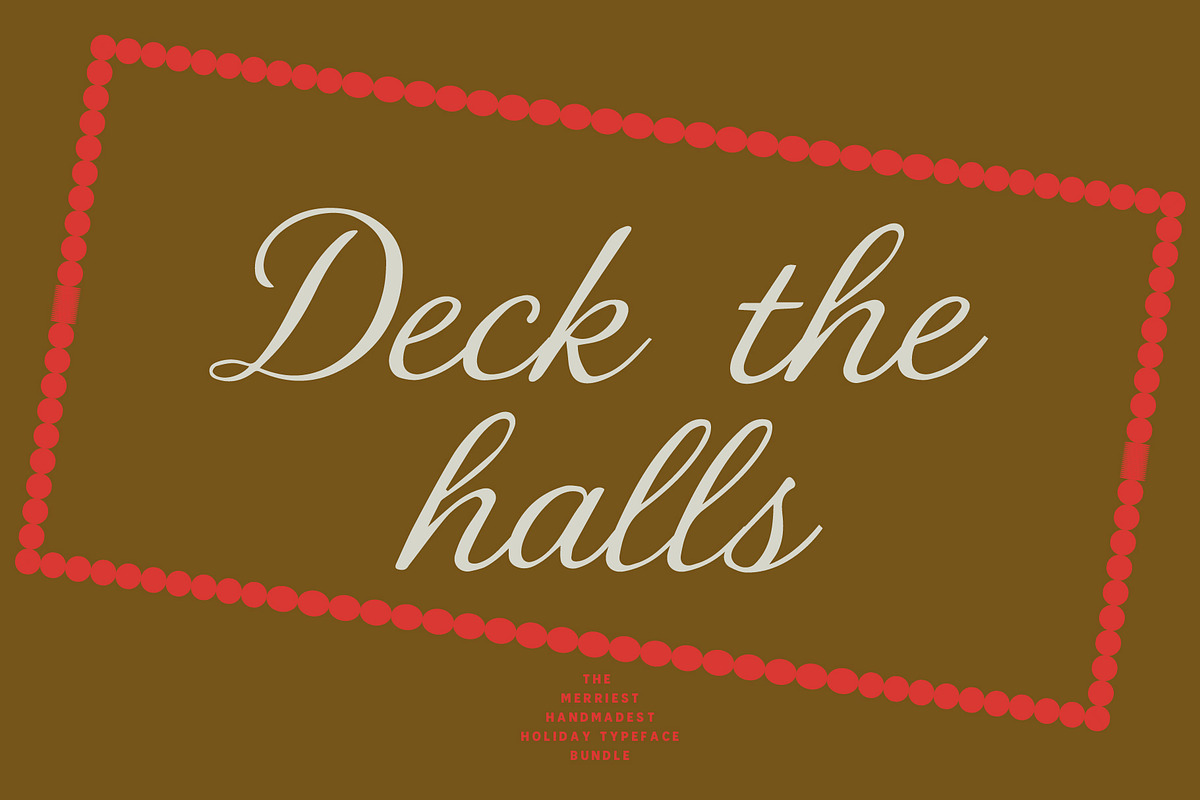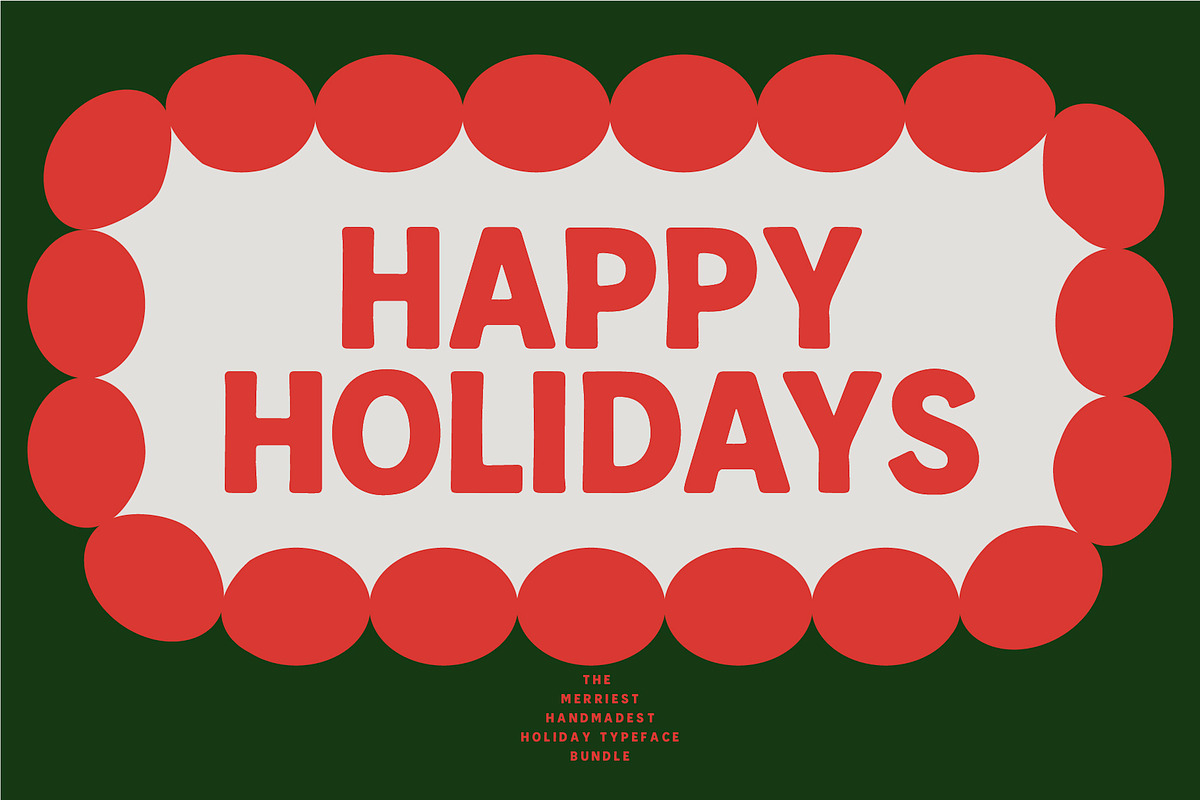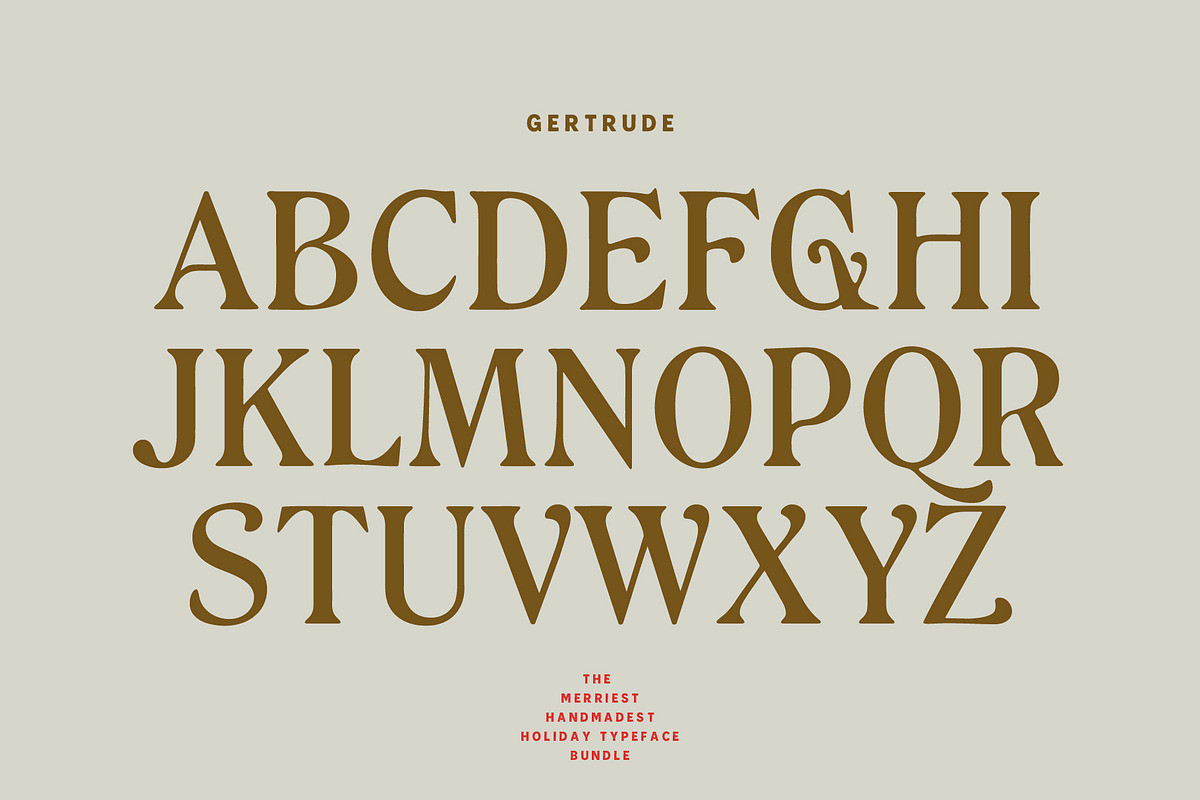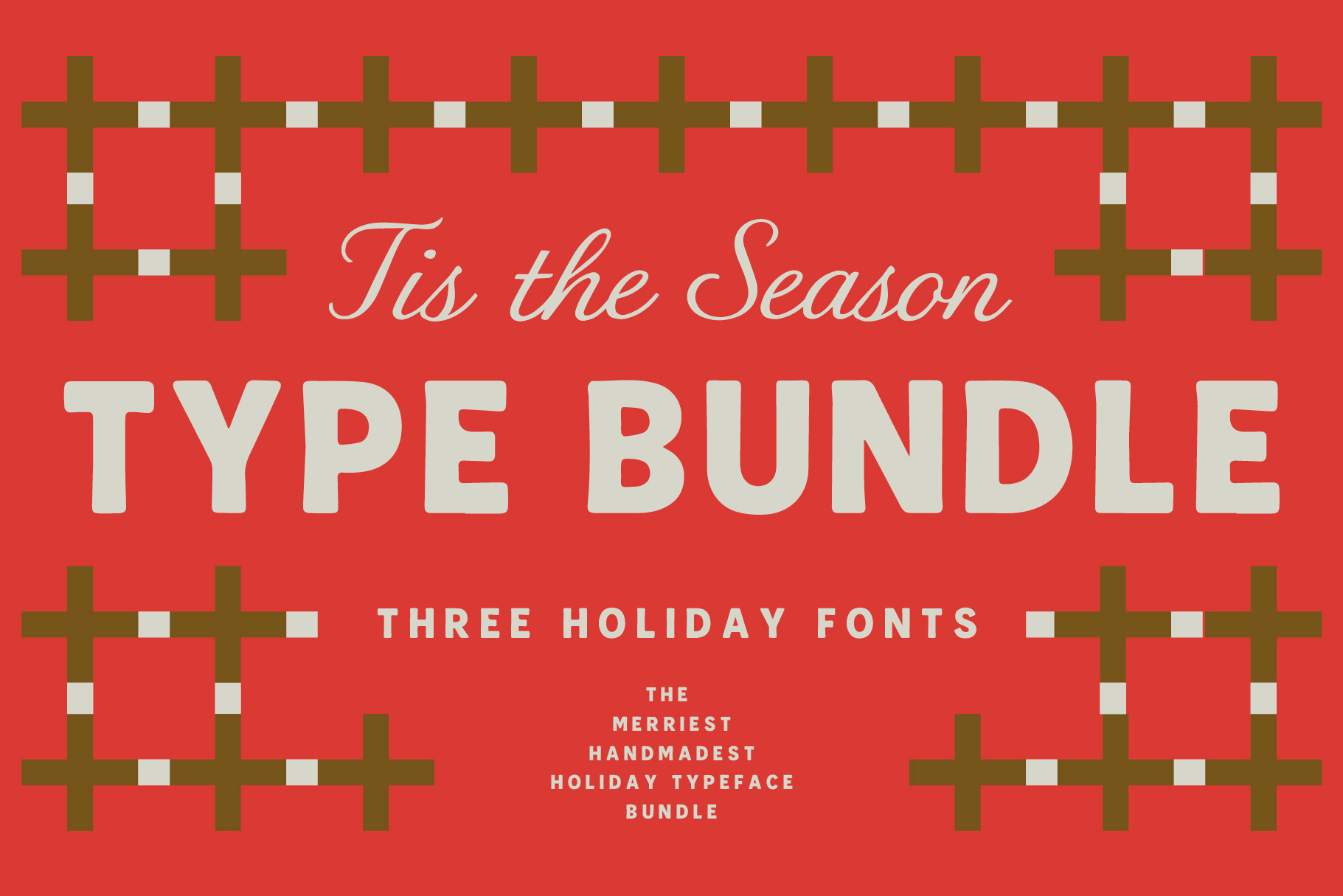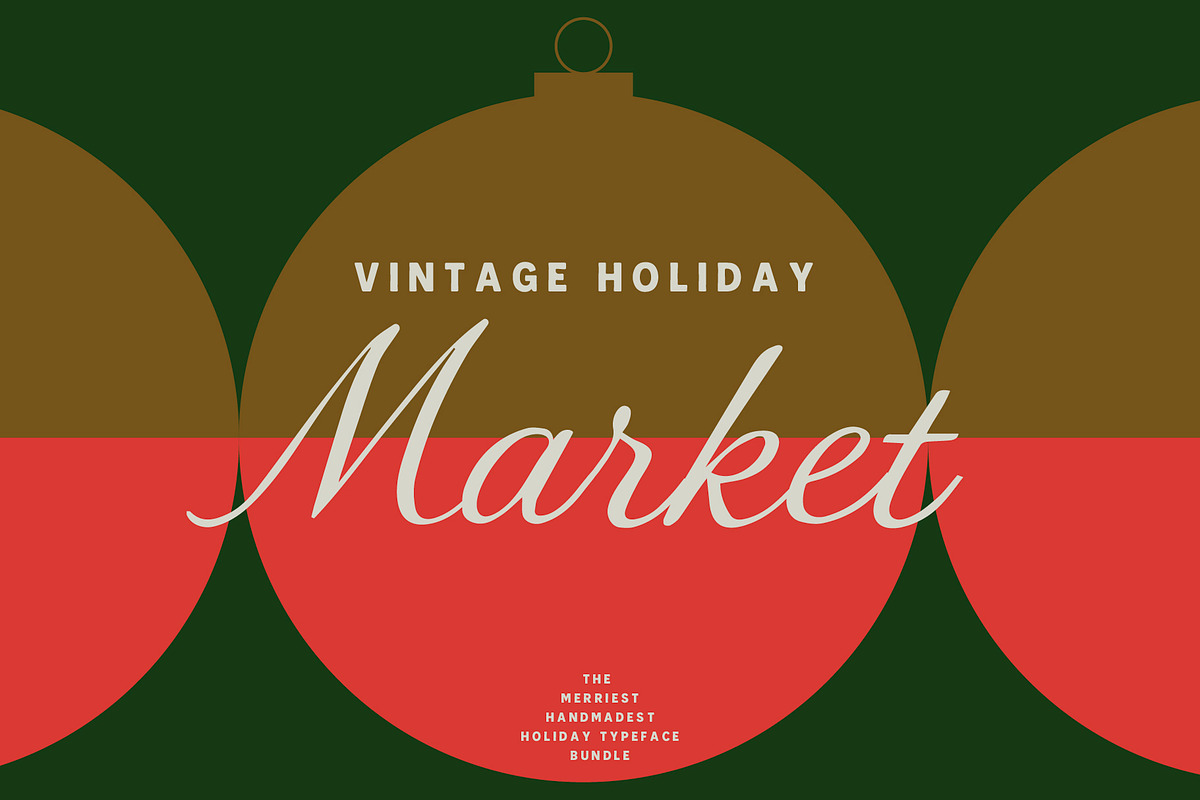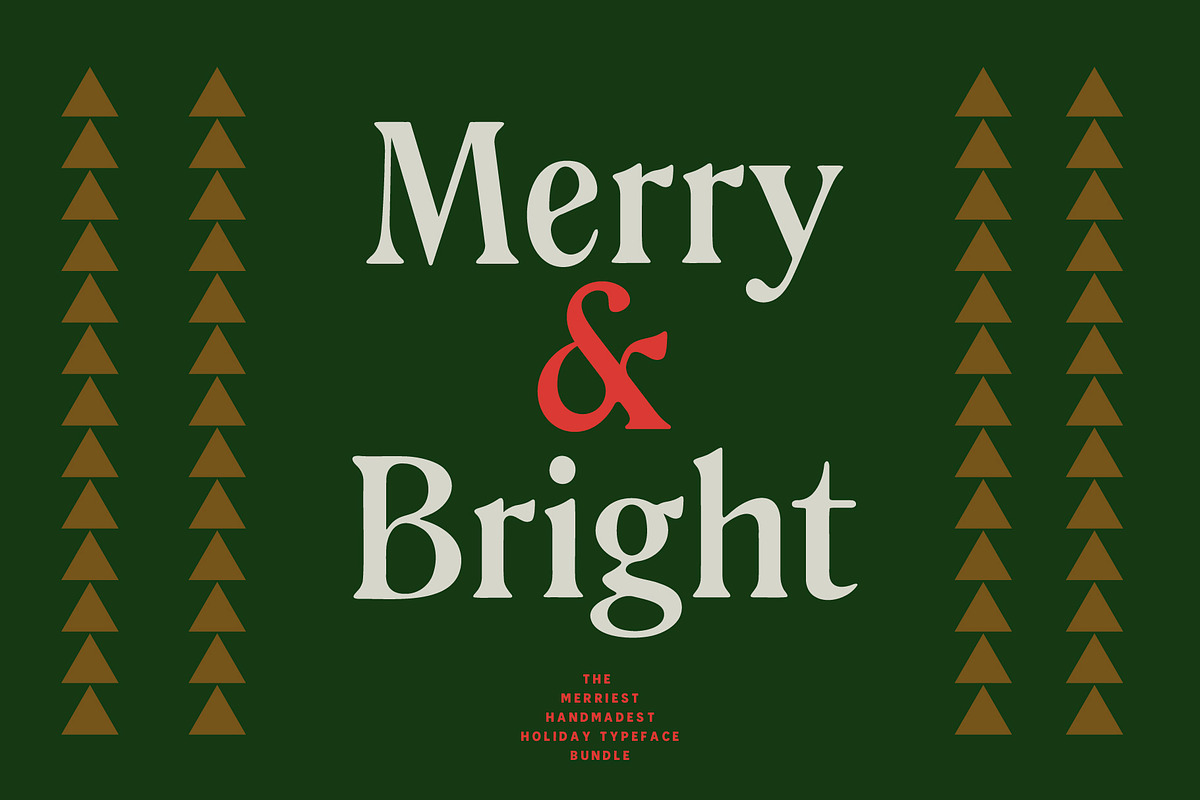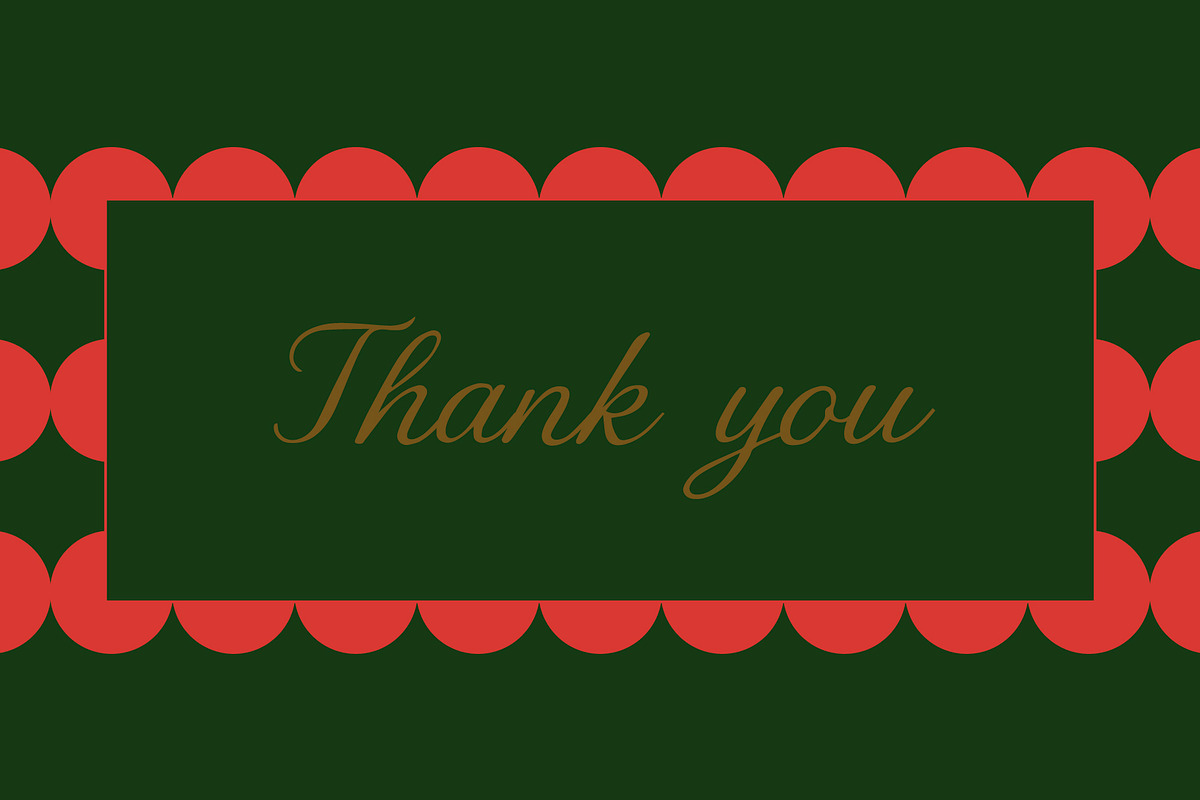
Holiday Bundle: Holiday Fonts
Bring warmth, whimsy, and a touch of vintage elegance to all your festive projects this season with The Cozy & Classic Holiday Typeface Bundle!
This essential collection features three distinct, high-quality fonts designed to cover all your holiday branding, greeting cards, product packaging, and seasonal marketing needs:
Grimmet (Hand-Drawn Sans All Caps): Bold, rustic, and full of character. Grimmet offers a casual, yet impactful hand-drawn feel that works perfectly for eye-catching titles, price tags, or banners where a down-to-earth, festive statement is needed.
Barnaby (Vintage Script Typeface): Elegant, flowing, and nostalgically vintage. Barnaby provides the perfect touch of classic luxury. Use it for formal invitations, signature branding, or as a sophisticated script overlay that captures the timeless spirit of the holidays.
Gertrude (Warm, Friendly Rounded Serif): Approachable, inviting, and effortlessly readable. Gertrude is your friendly foundational font. Its smooth, rounded serifs lend a soft, welcoming feel, making it ideal for body copy, seasonal recipes, or packaging that needs to feel warm and family-oriented.